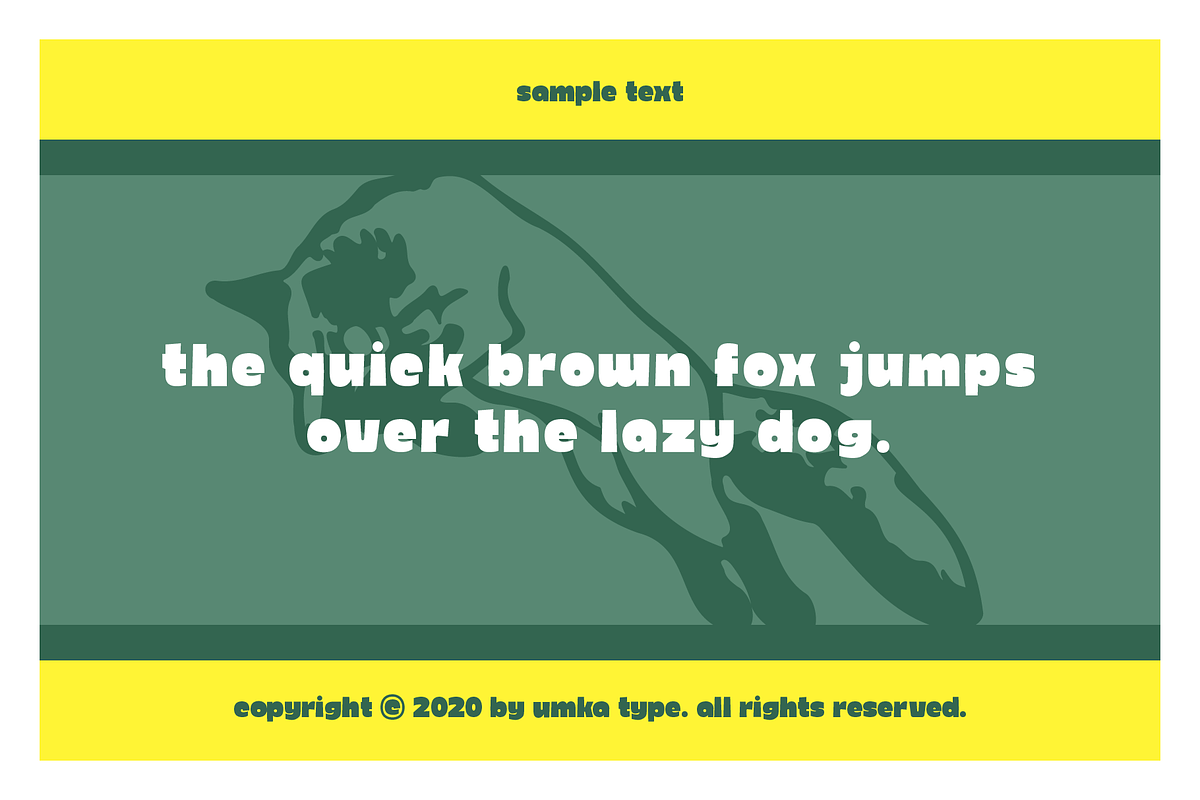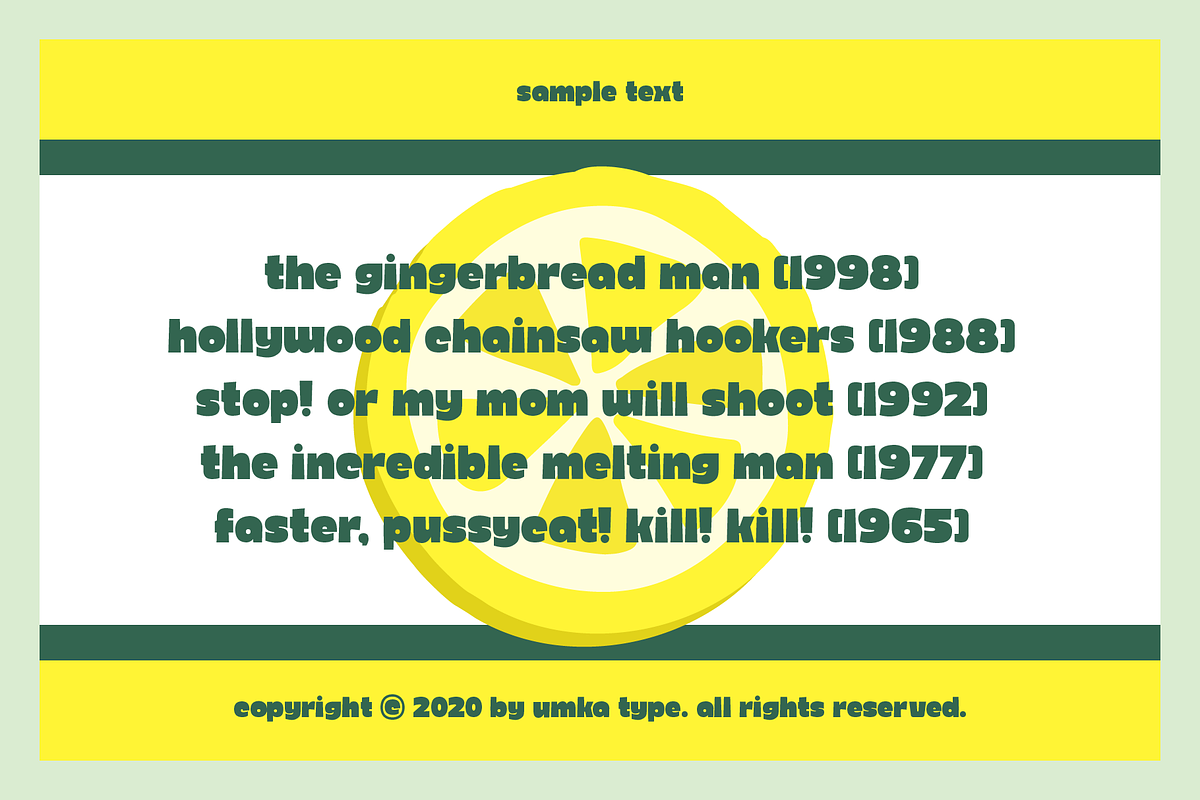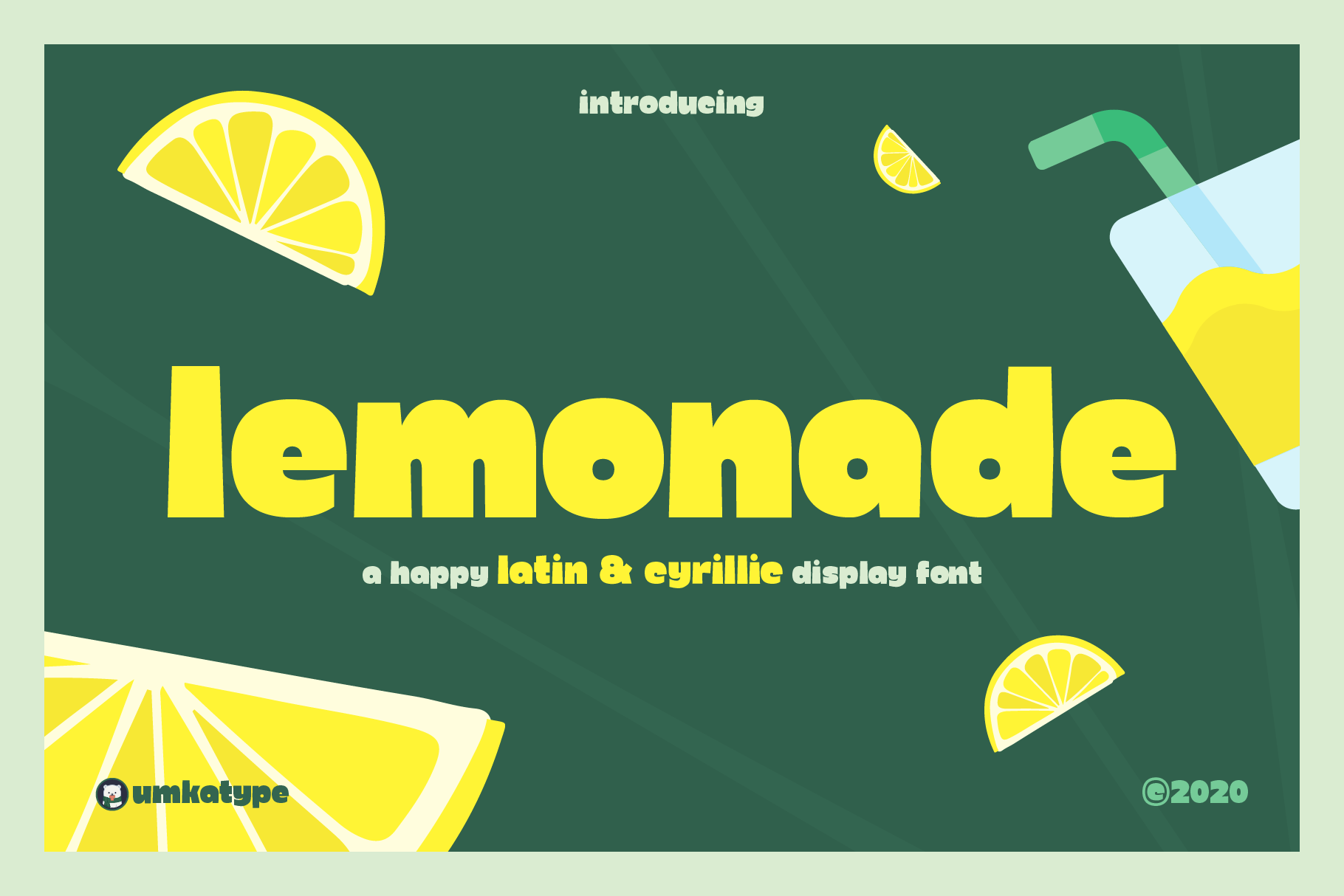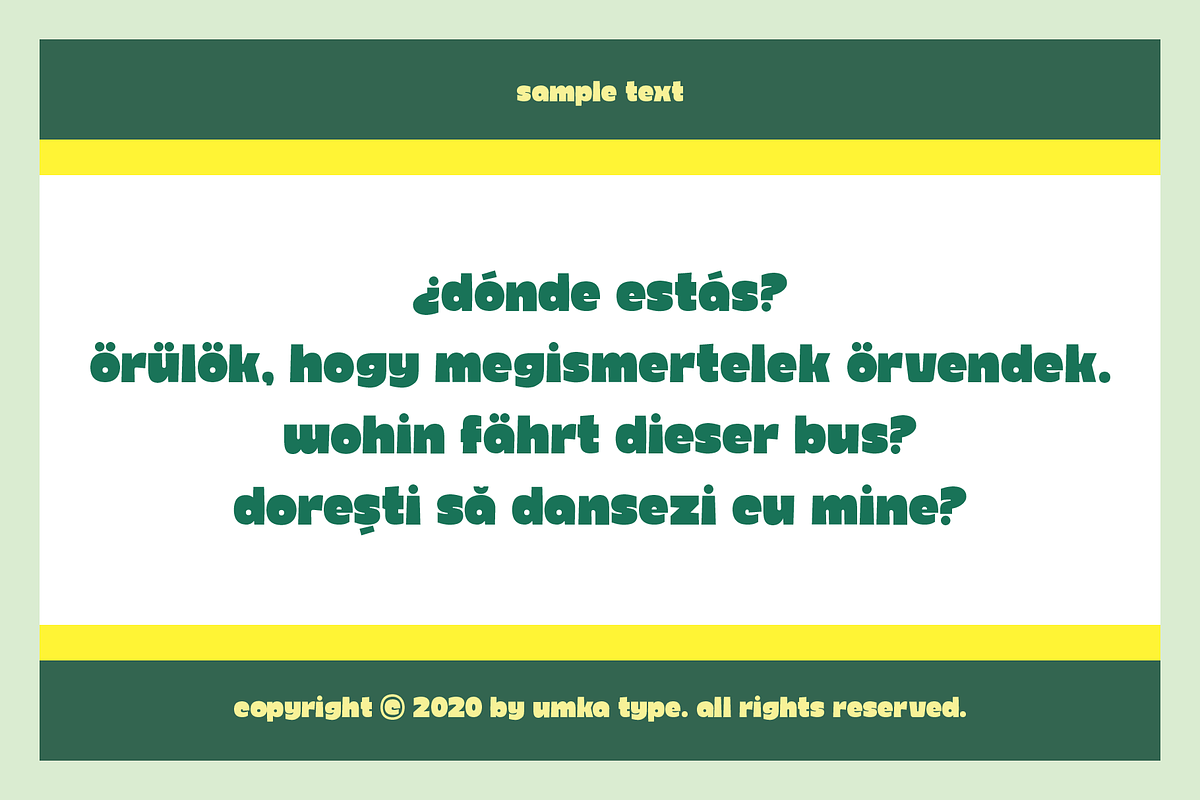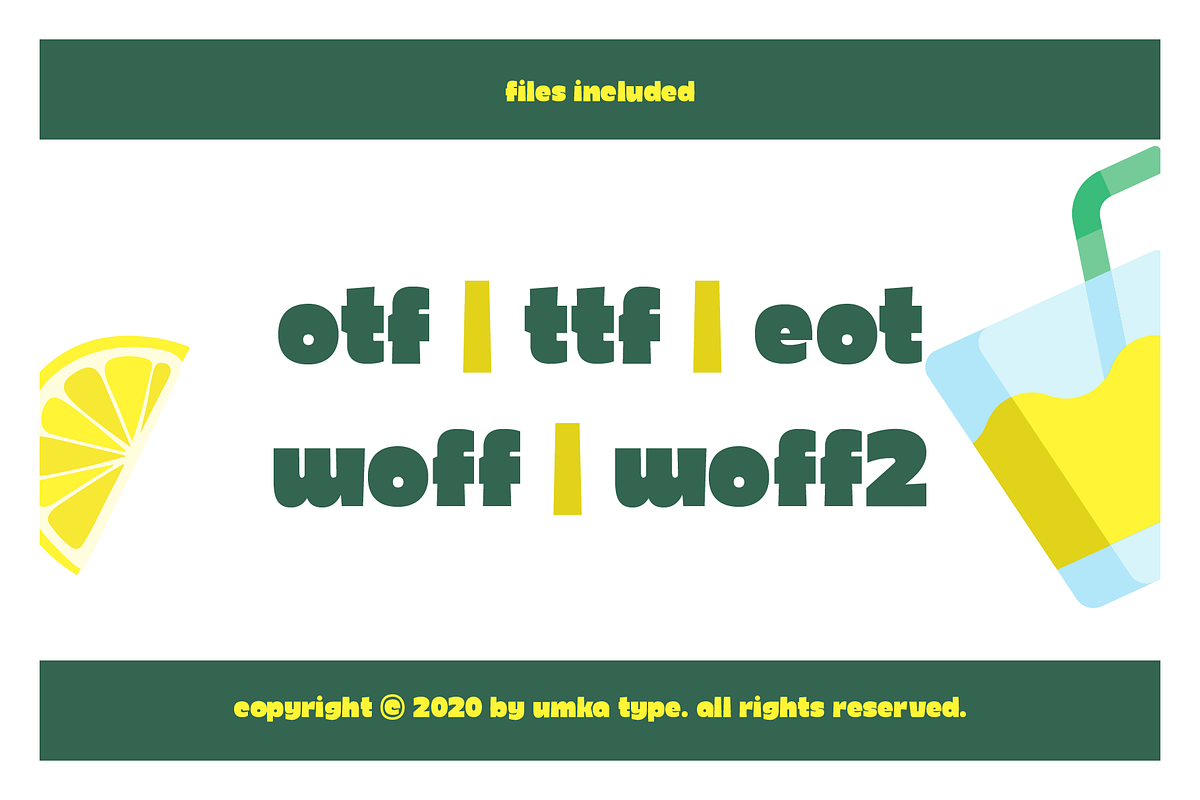
Lemonade Cute Display Font
Lemonade - A Happy Display Font
- Lemonade is a carefully crafted fun font.
- Multilingual: It has Extended Latin and Cyrillic letters.
Lemonade created for games, web design, branding and social media works.